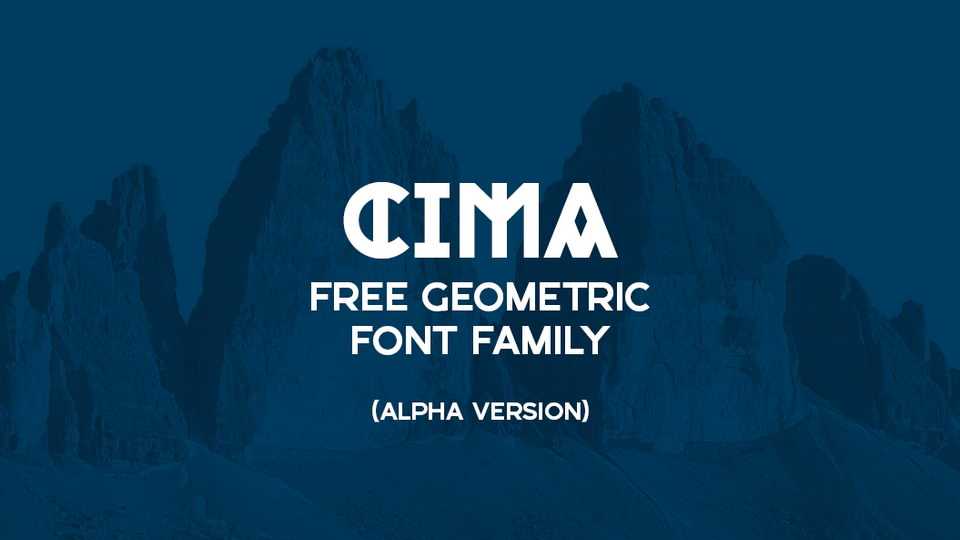
Download Cima typeface, a creative geometric font family in three styles, each with own unique look. Cima fonts look perfect for posters, headlines, logo, branding and other artworks.
Designer: Piotr Monsiorski